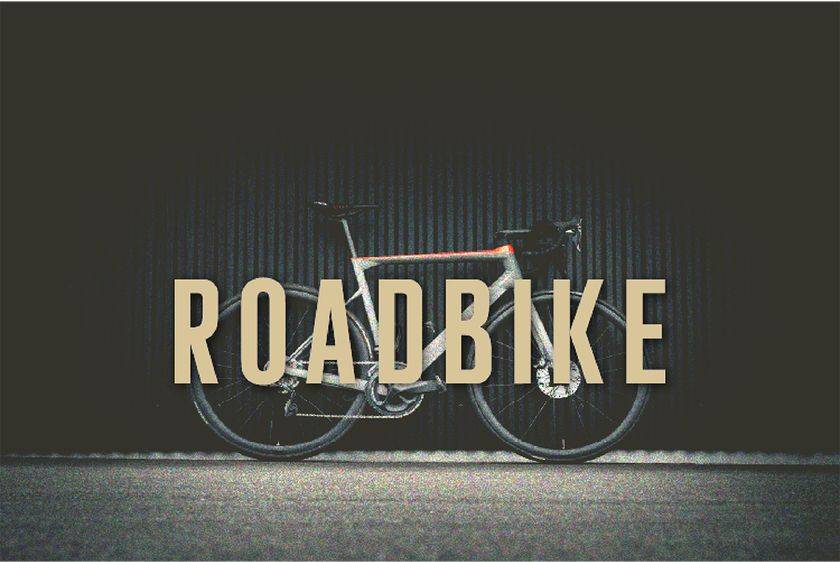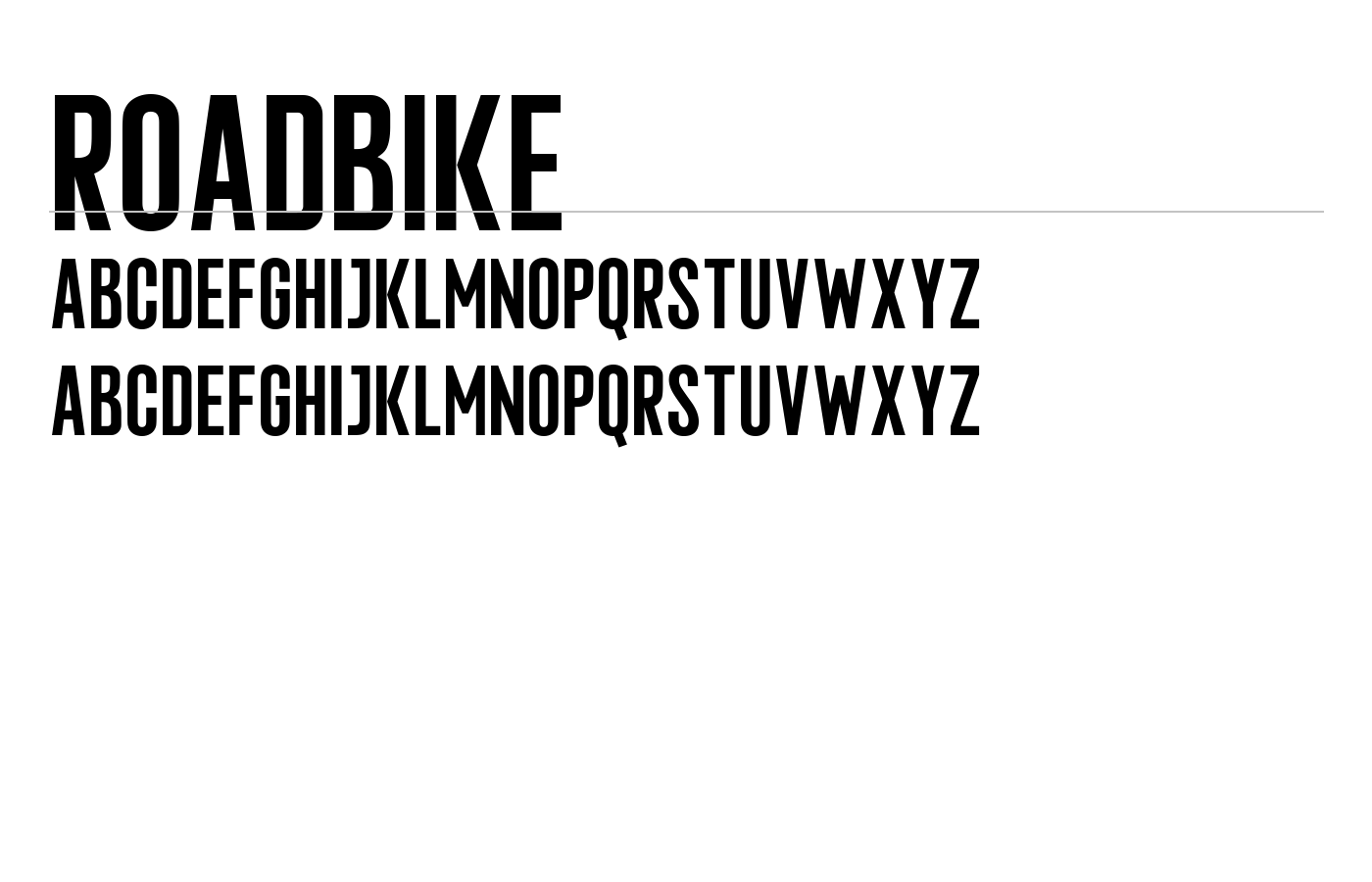
Roadbike is a tall, condensed sans serif font with a bold, modern appearance that commands attention. Its clean, geometric strokes and narrow spacing give it a strong, dynamic feel, making it perfect for sporty, urban, or industrial-themed designs. This typeface works especially well in headlines, logos, and branding where a confident, streamlined look is desired.
Roadbike Font
About Roadbike Font